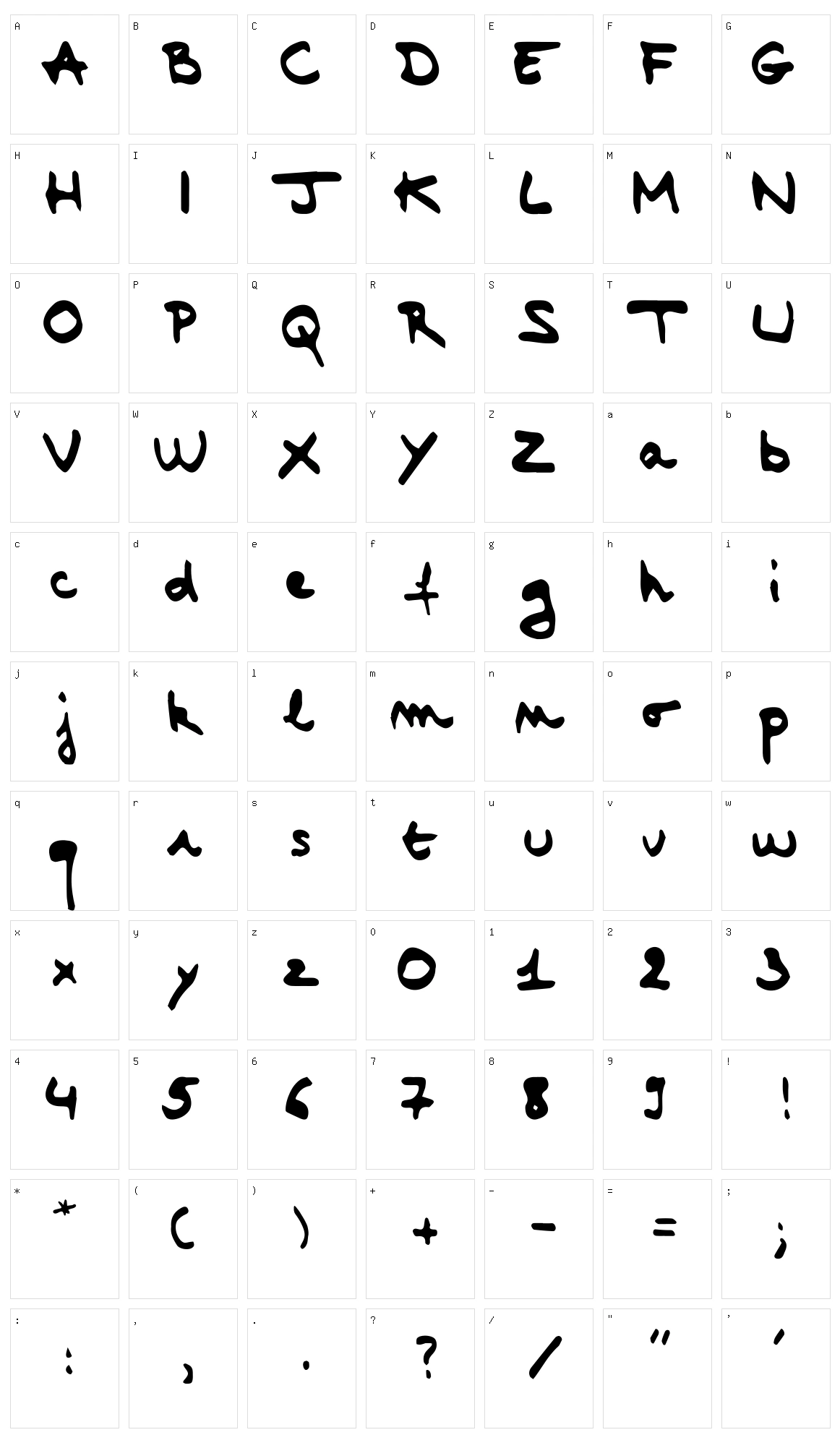
The free font Bobo is carefully designed by Raoul Henry, showcasing a thoughtful balance of creativity and usability and falls under the Script font style. When you download the ZIP file, it contains only 13.66 KB of font files, making it lightweight and quick to download. Please review the license details below to understand permitted usage and distribution rights. If license information is not available, we recommend using this font for personal projects only or contacting the author directly for commercial usage permissions.